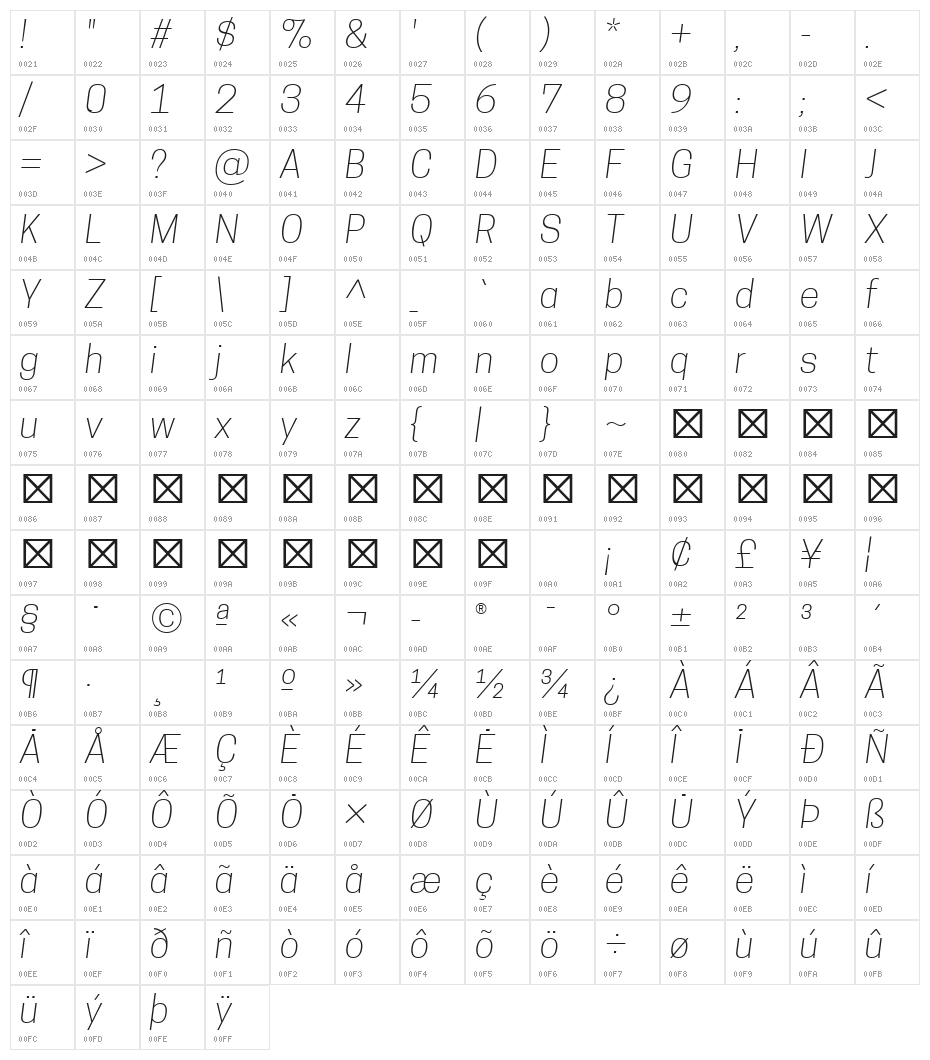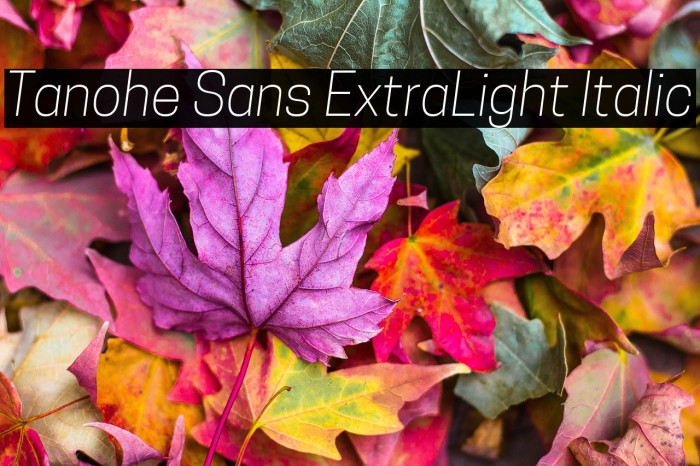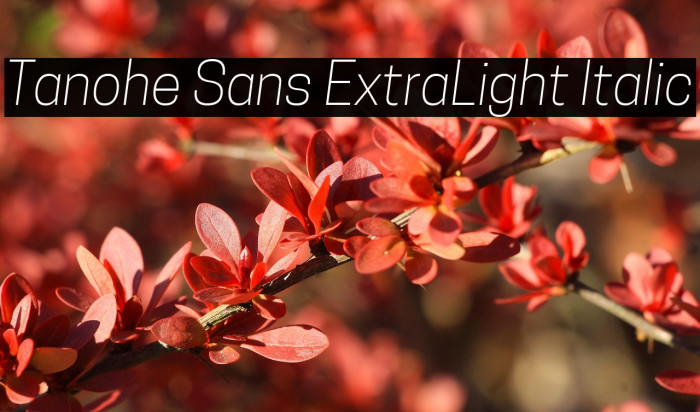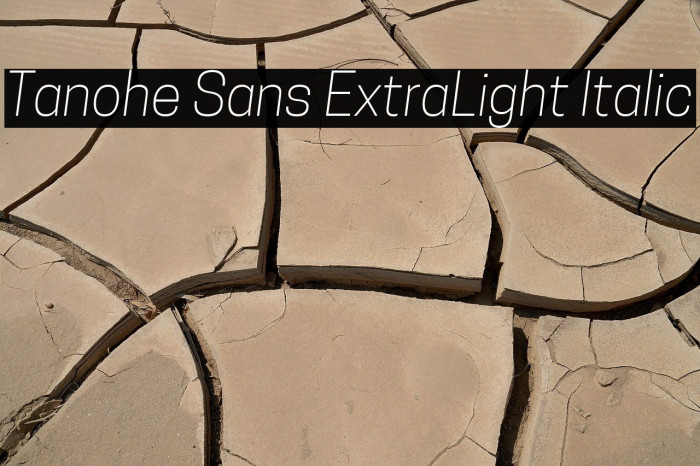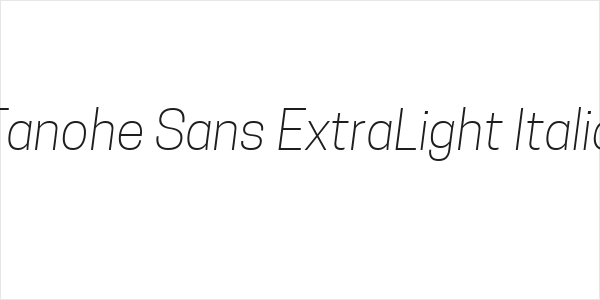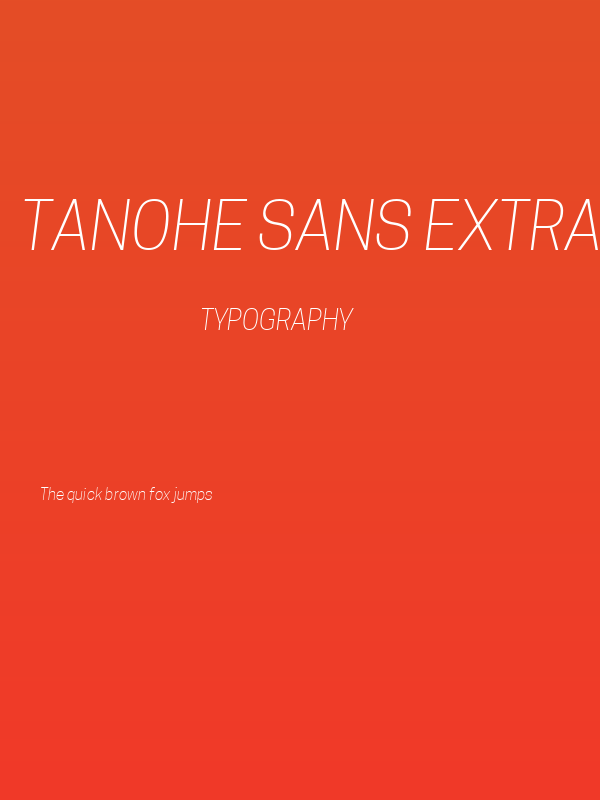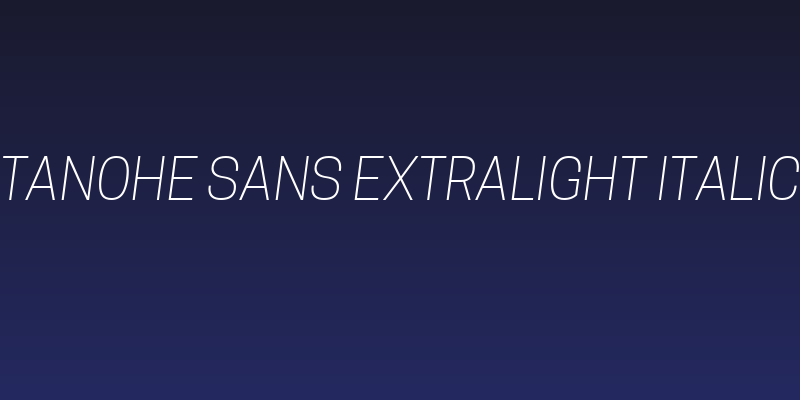
Tanohe Sans ExtraLight Italic Font
Tanohe Sans ExtraLight Italic Description
This font features a sleek and modern design with a sans-serif style. It is characterized by its extra-light weight and italicized form, giving it an elegant and sophisticated appearance. The letters are evenly spaced with a slight slant, adding a dynamic feel to the text. The clean lines and minimalistic approach make it suitable for contemporary design projects. The numerals and special characters maintain the same thin and refined aesthetic, ensuring consistency across all elements.
Proposed ProjectsIdeal for fashion magazines, modern branding, minimalist websites, and elegant invitations.